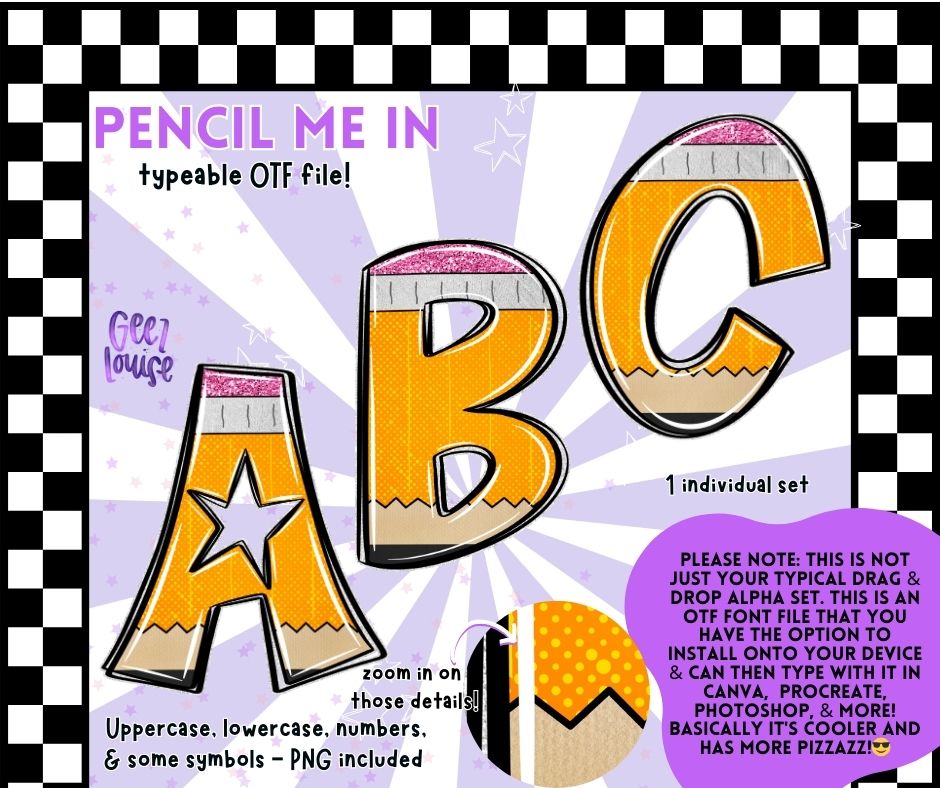
Pencil Me In – OTF Font + PNG Set
Add some classroom charm to your next creative project with the "Pencil Me In" alpha set! This school-inspired font is packed with personality—featuring full uppercase and lowercase letters, numbers, and a variety of symbols. Whether you're designing back-to-school graphics, teacher merch, or fun educational resources, this playful pencil-themed alphabet comes in both OTF and PNG formats to suit your needs. Easy to use and perfect for digital or printable projects!